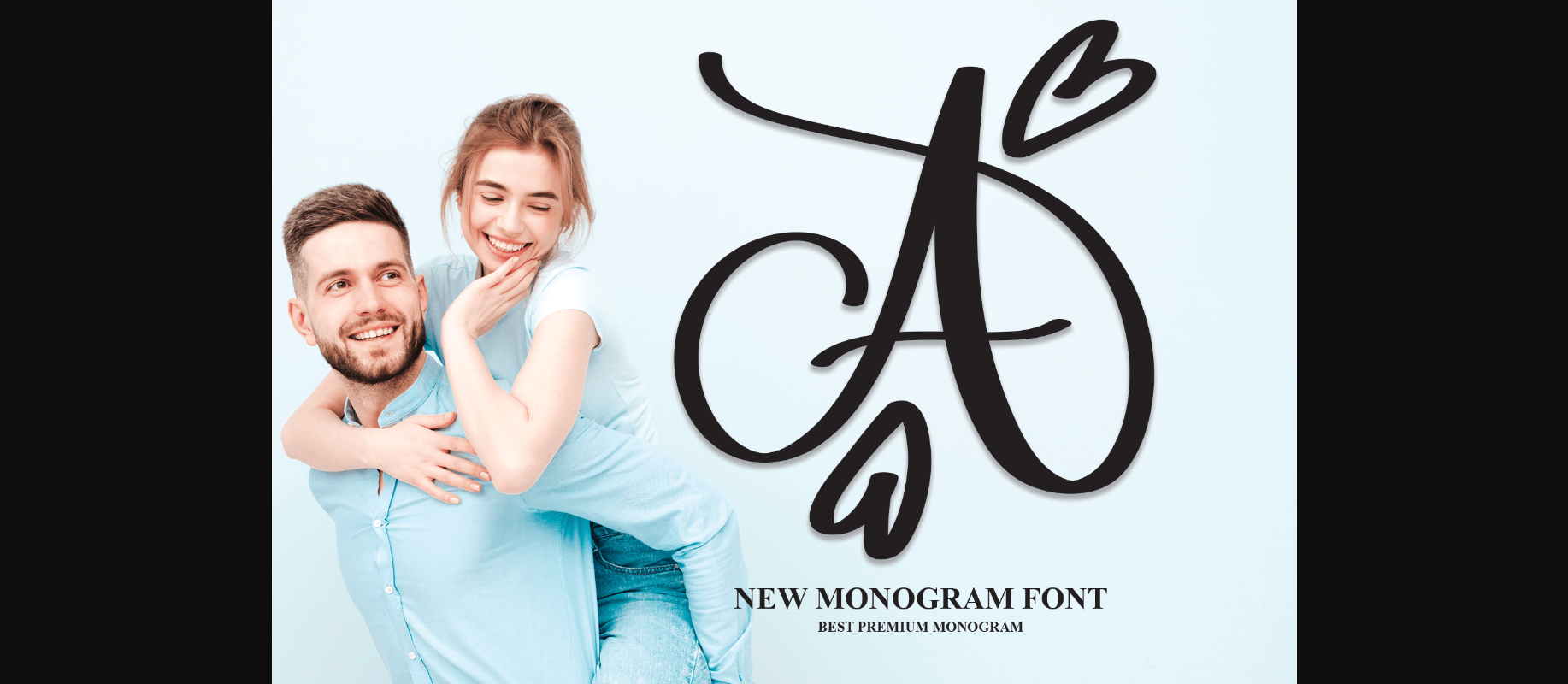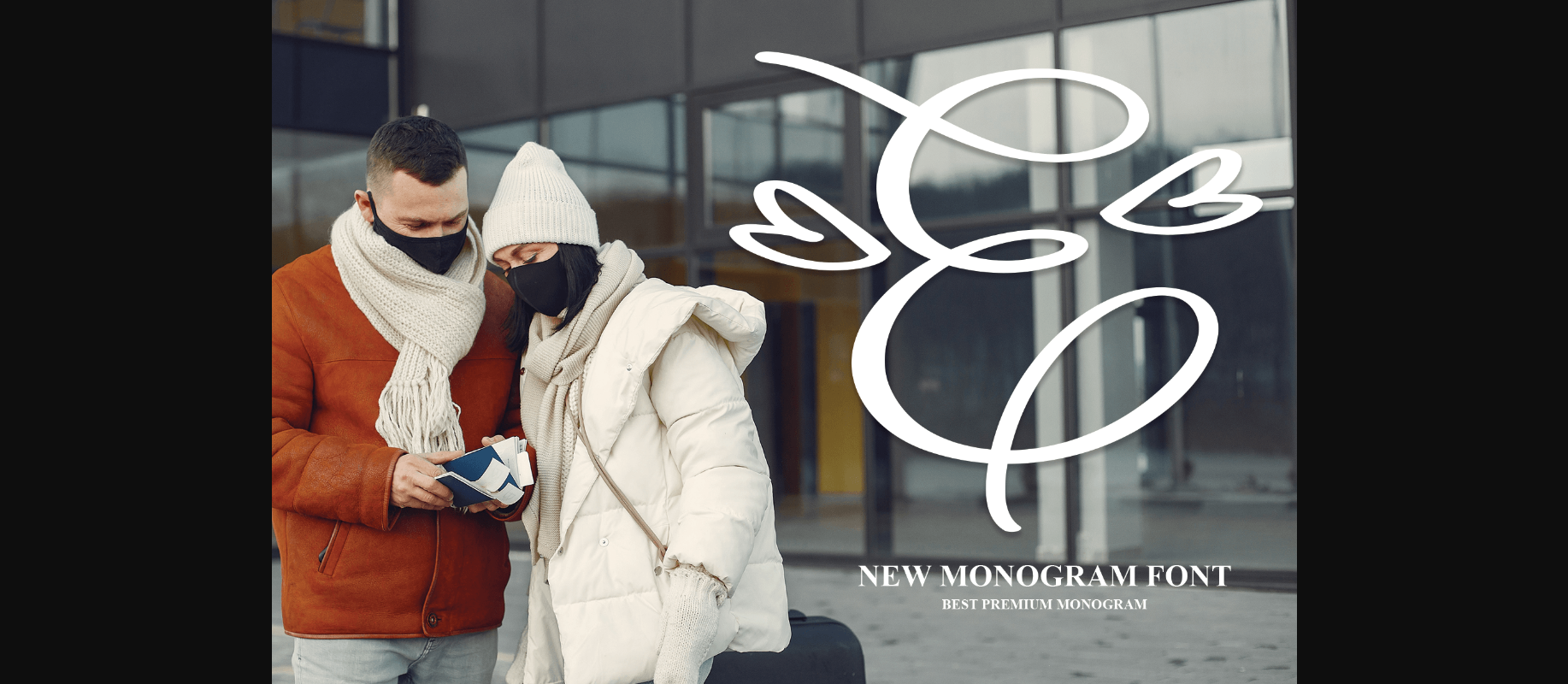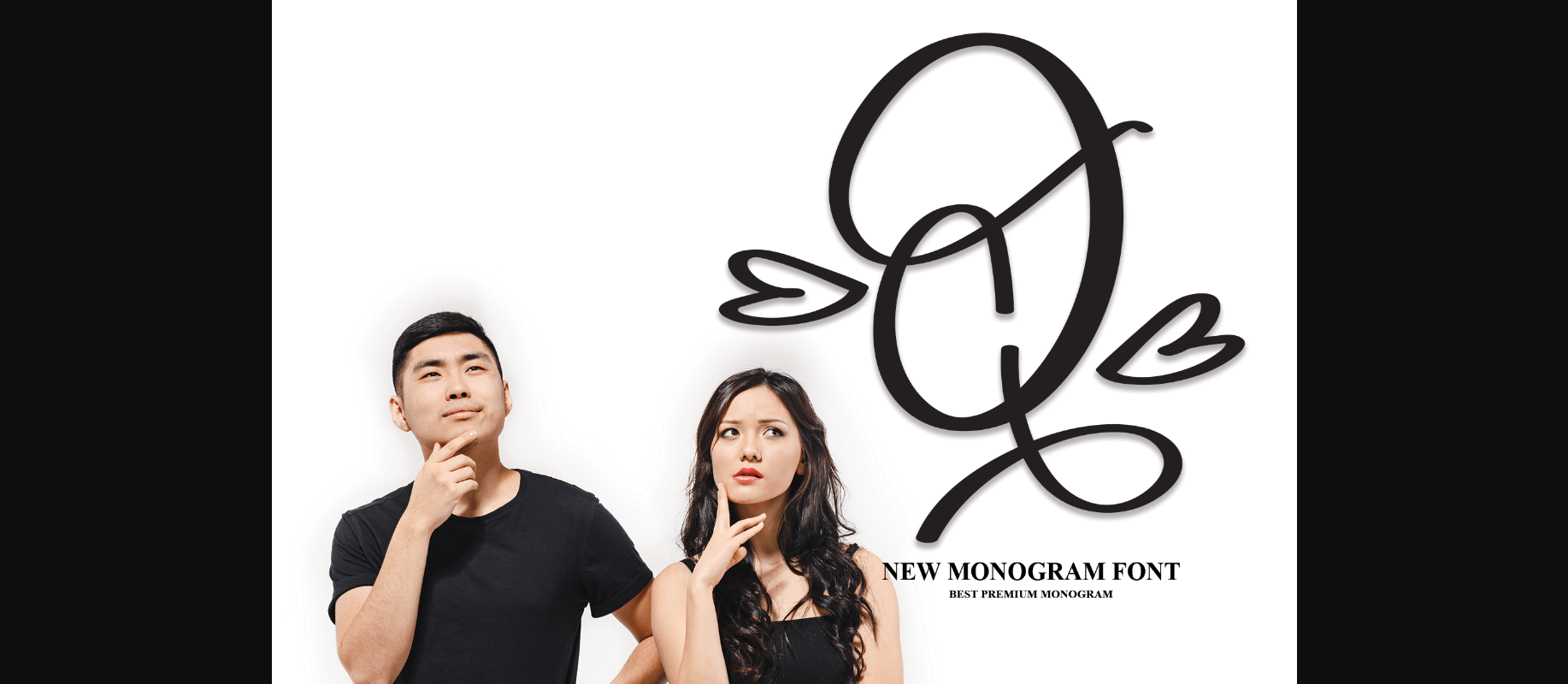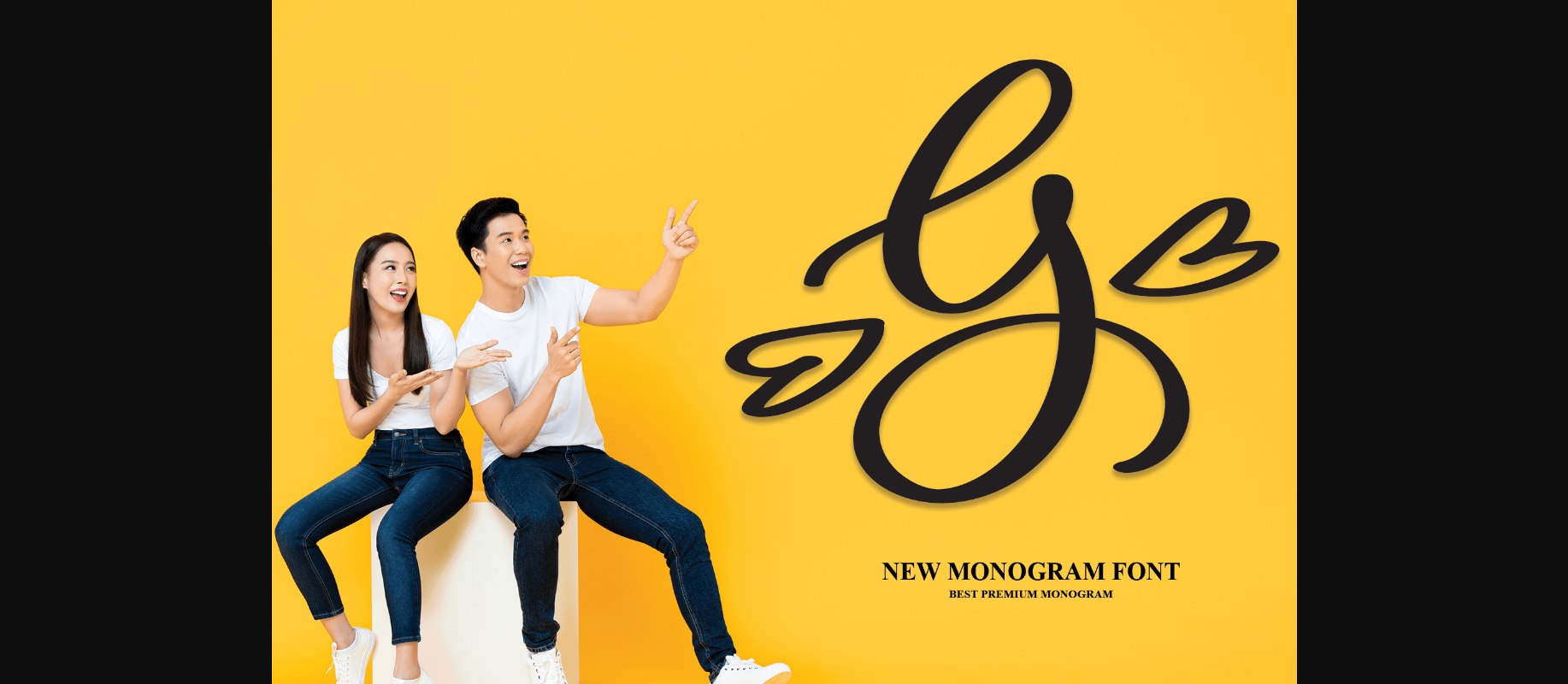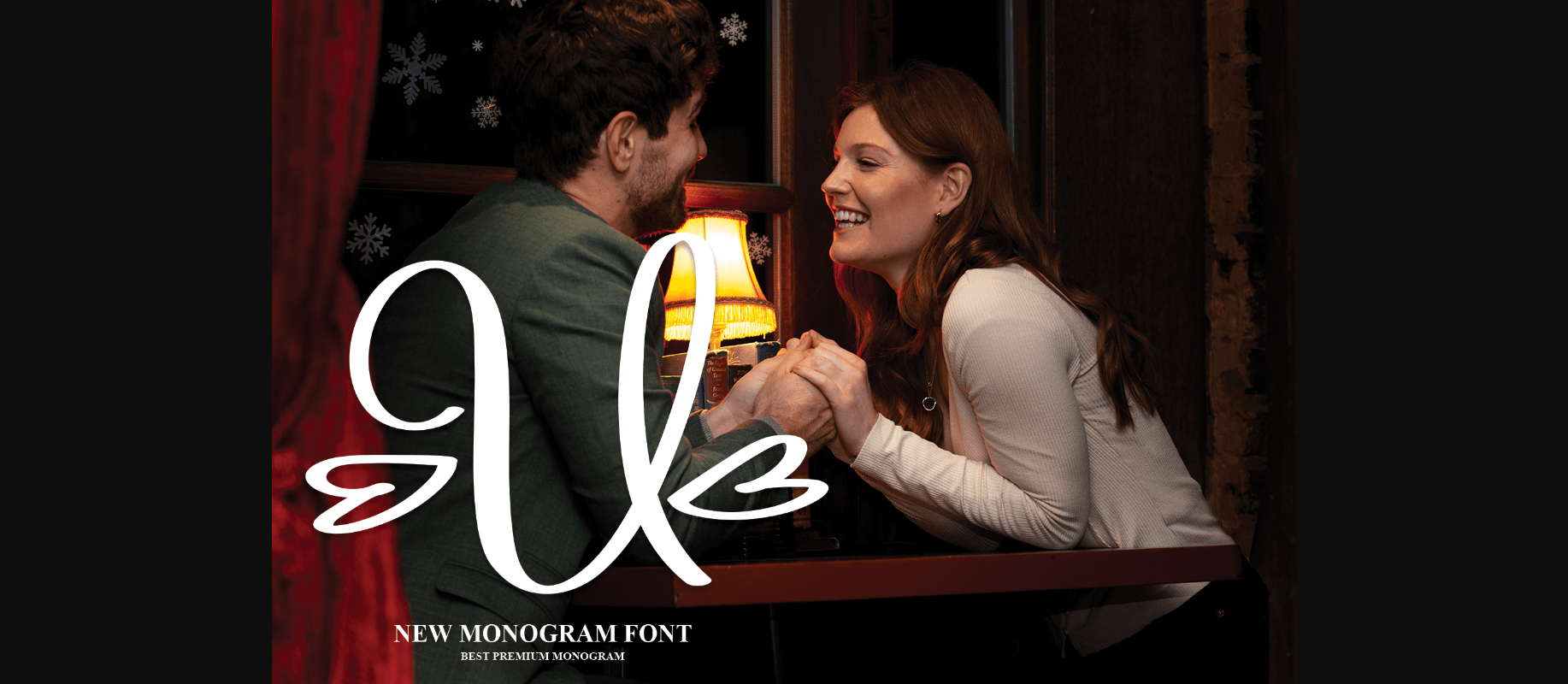
A Monogram Font
About A Monogram Font
A Monogram is a fresh and highly detailed decorative font. Add this beautiful-looking font to any of your favorite love letters, wedding invitations, or design ideas, and you’ll be surprised at the results.